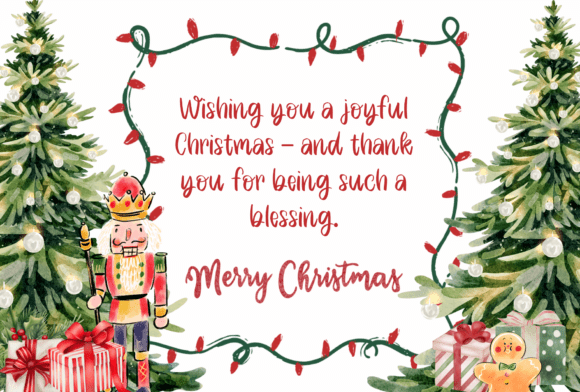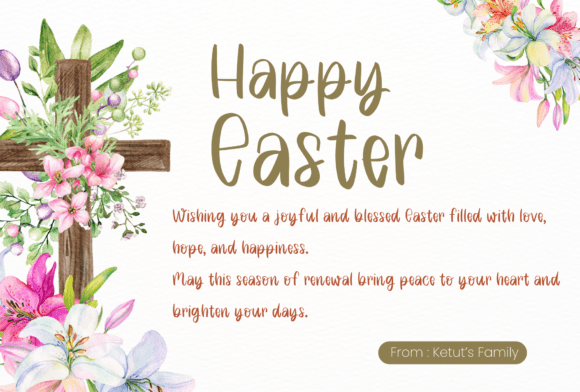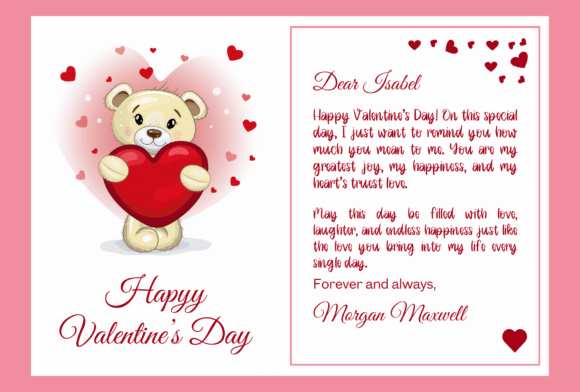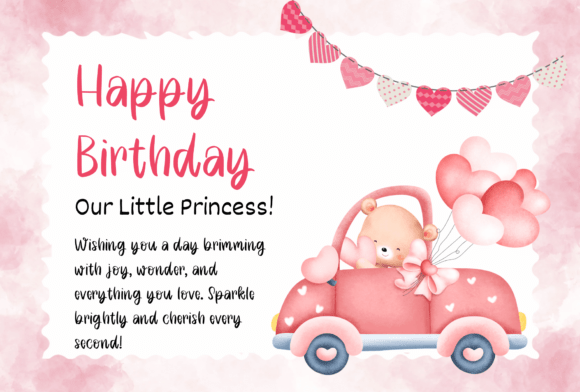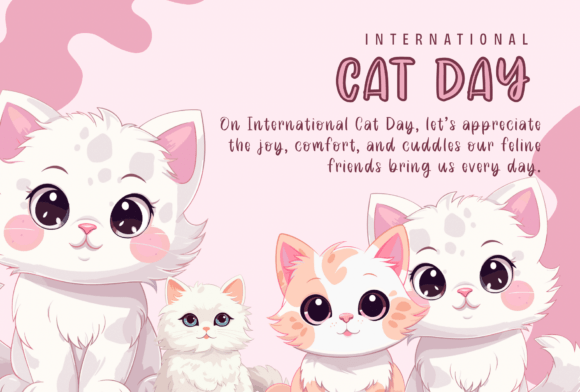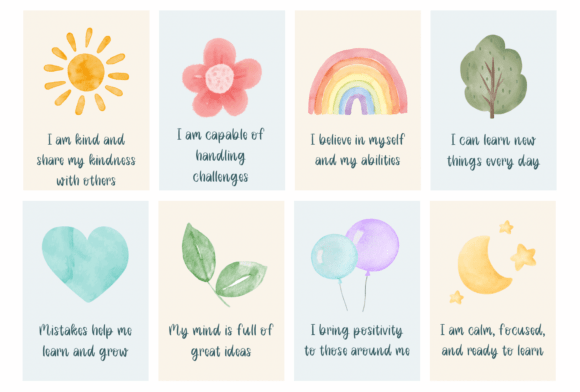
Introducing Butter Cookie Font: The Sweetest Addition to Your Design Toolbox
Are you on the hunt for a font that exudes warmth, charm, and playfulness? Look no further than Butter Cookie, a delightful handwritten font designed to bring a touch of sweetness to your creative projects. With its smooth curves and friendly character shapes, this font is perfect for designers and crafters who want to add a personal and fun touch to their work.
The Perfect Font for Cute Designs
Butter Cookie is a versatile font that works beautifully for a wide range of applications, from cute designs and kids’ products to planners, calligraphy worksheets, and branding. Its casual handwritten style makes your text feel personal, fun, and easy to read, making it an excellent choice for designers who want to create engaging and child-friendly content.
Whether you’re creating digital products, such as stickers and coloring pages, or print materials, like invitations and logos, Butter Cookie is the perfect font to add a soft and cheerful touch. Its smooth curves and rounded edges give your text a warm and inviting feel that’s sure to capture the attention of your audience.
Ideal for Digital and Print Use
One of the best things about Butter Cookie is its versatility. This font works beautifully for both digital and print use, making it an excellent addition to your design toolbox. Use it to create:
- Etsy products, such as printable art, planners, and party decorations
- Classroom resources, including worksheets, posters, and educational materials
- Cozy seasonal designs, like holiday cards, gift tags, and party invitations
- Social media posts, such as cute quotes, fun facts, and engaging captions
With Butter Cookie, you can create a wide range of products that are both visually appealing and easy to read.
Key Features of Butter Cookie Font
So, what makes Butter Cookie font so special? Here are some of its key features:
- Smooth curves and friendly character shapes: Give your text a warm and inviting feel with Butter Cookie’s smooth curves and rounded edges.
- Casual handwritten style: Add a personal touch to your designs with this font’s playful and relaxed style.
- Easy to read: Despite its playful nature, Butter Cookie is surprisingly easy to read, making it perfect for both digital and print use.
- Versatile: Use Butter Cookie for a wide range of applications, from cute designs and kids’ products to planners, branding, and social media posts.
Tips for Using Butter Cookie Font
Here are some tips for getting the most out of Butter Cookie font:
- Pair it with other fonts: Combine Butter Cookie with other fonts to create a unique and visually appealing design.
- Experiment with colors: Try out different colors and textures to add depth and interest to your designs.
- Use it for headings and titles: Butter Cookie is perfect for headings and titles, where its playful style can really shine.
If you’re looking for a font that adds a touch of warmth, charm, and playfulness to your designs, look no further than Butter Cookie. With its smooth curves, friendly character shapes, and casual handwritten style, this font is perfect for designers and crafters who want to create engaging and child-friendly content. Whether you’re creating digital products, print materials, or social media posts, Butter Cookie is the perfect addition to your design toolbox.